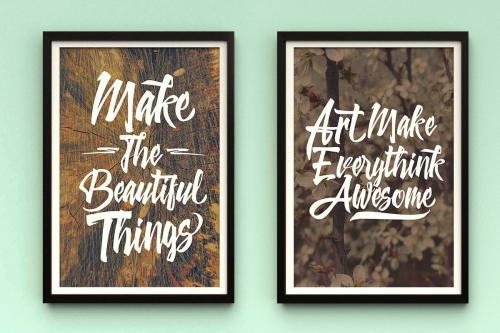
Auto Moods script is the new font from The Brosnes Design Co, was created with hand-painted characters. Inspired by street art, lettering, and an irregular baseline, a casual, arty and inky.
Auto Moods script comes with lowercase and uppercase, as well as multi-lingual support, currency figures, numerals, swashes, splatter and punctuation.